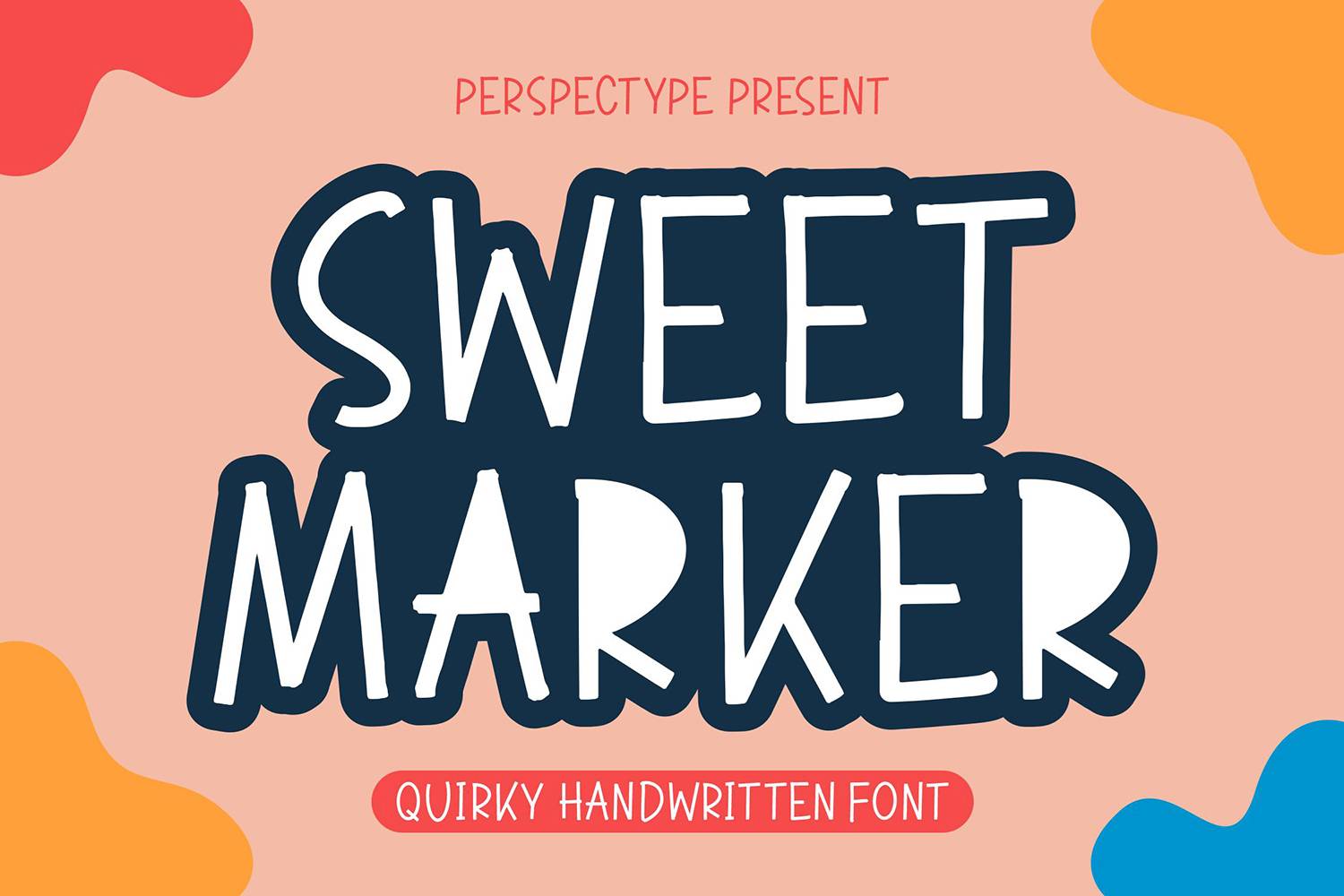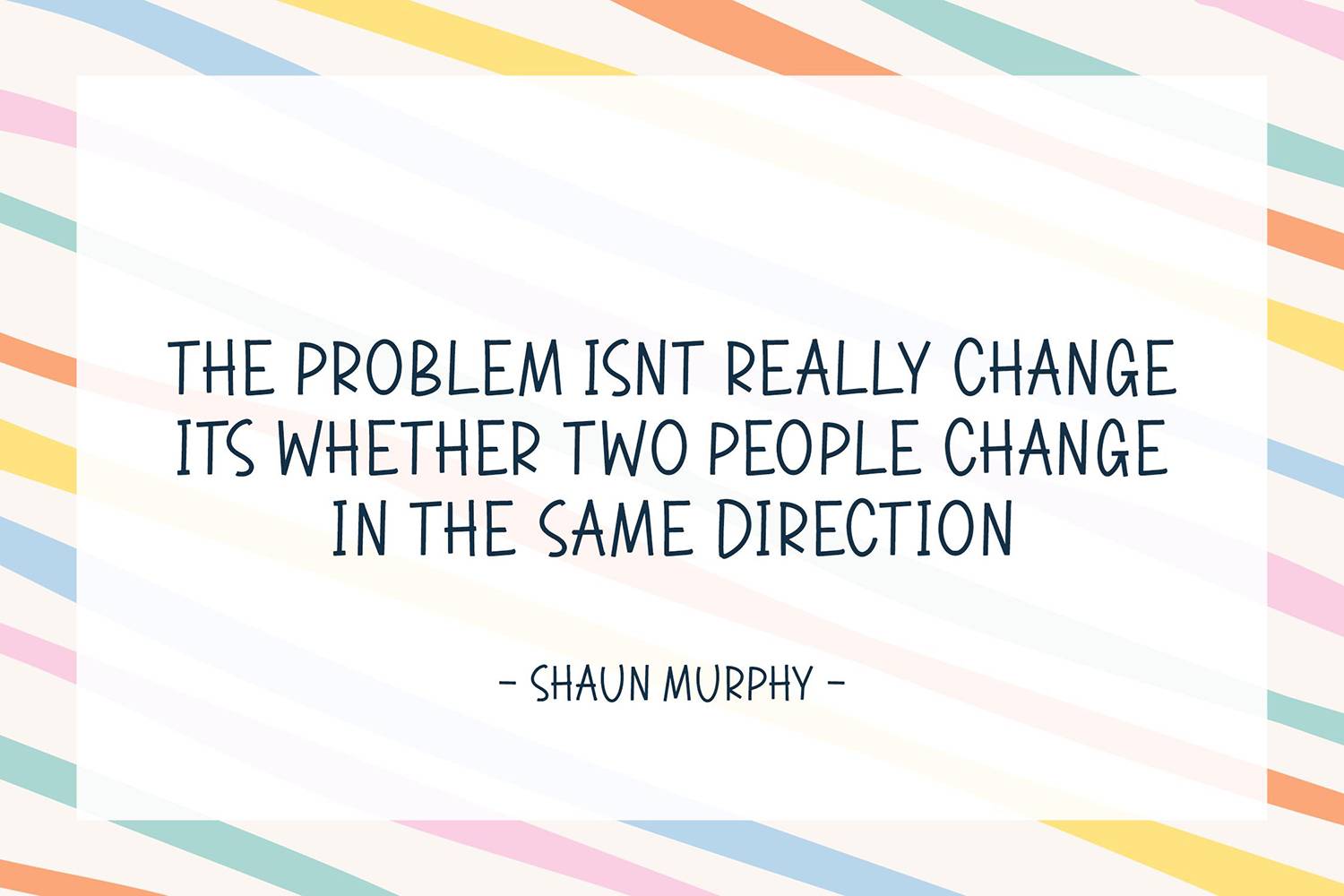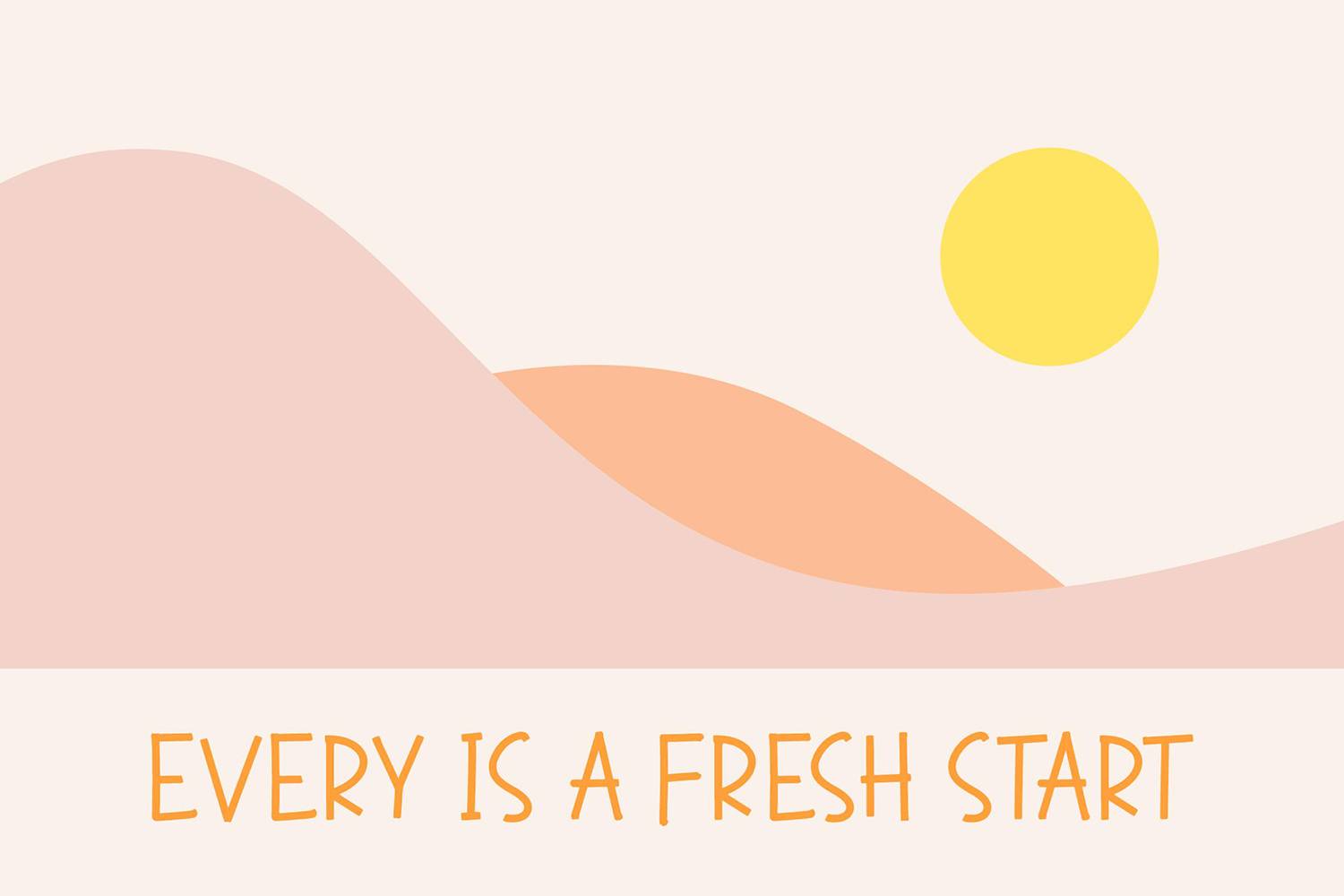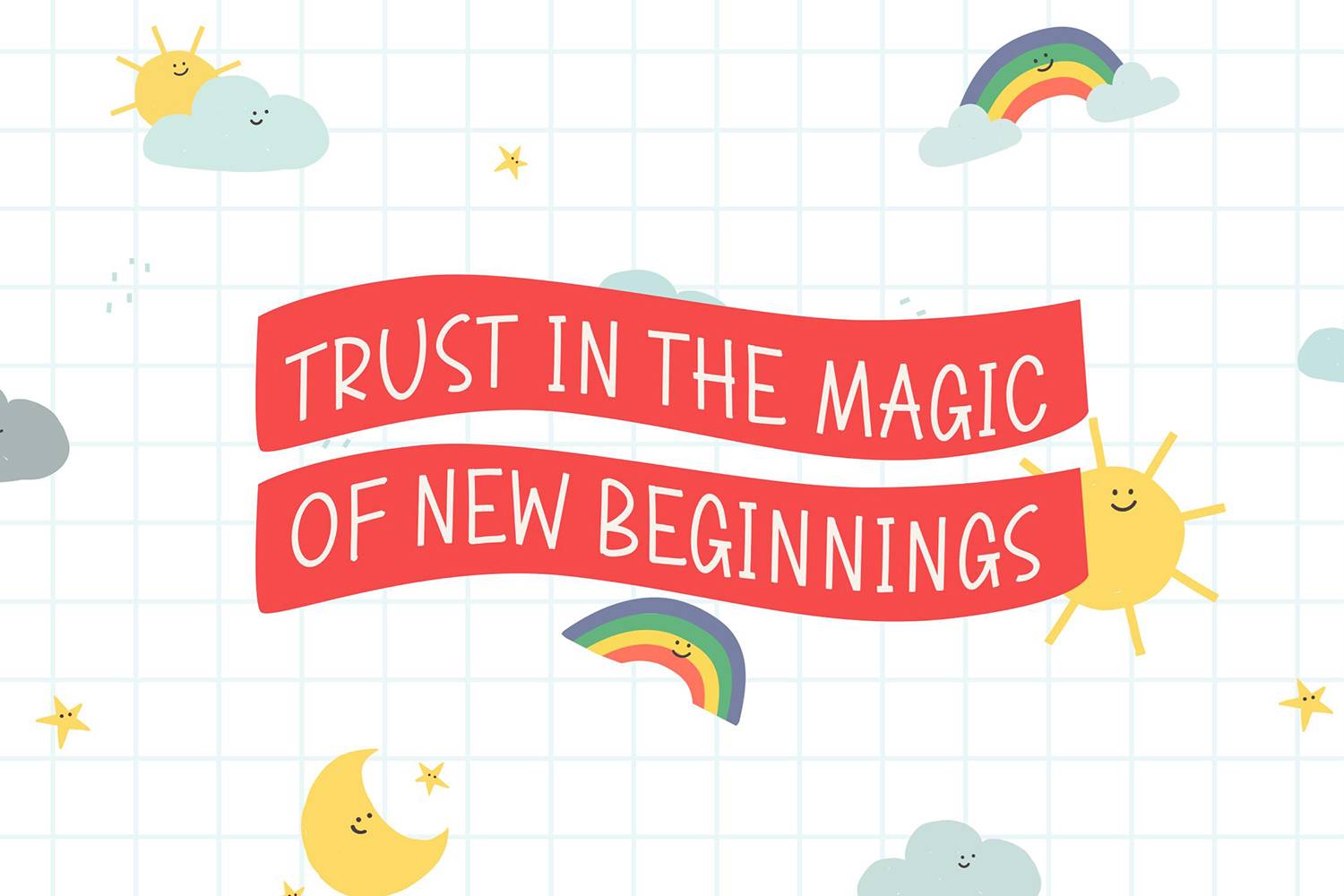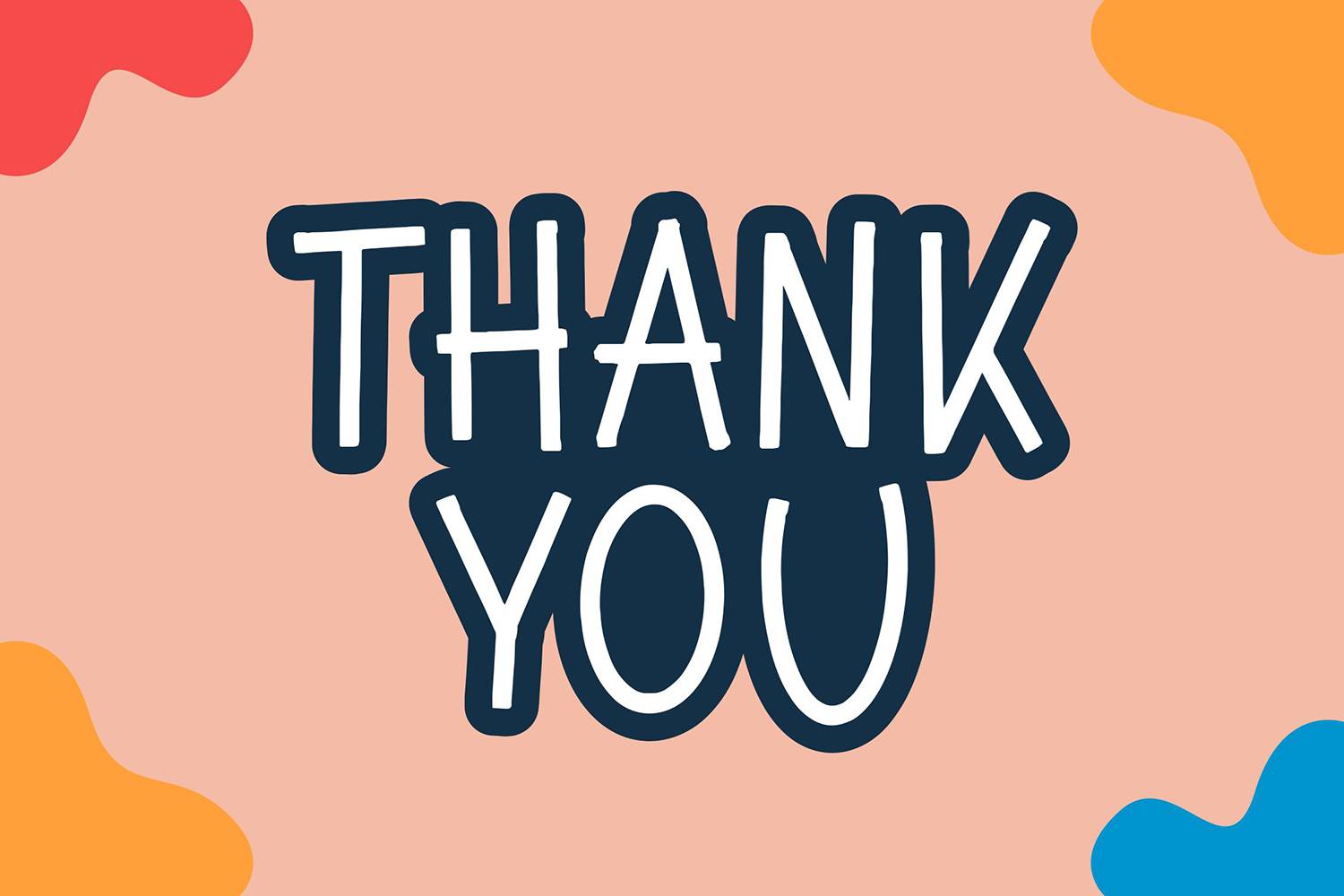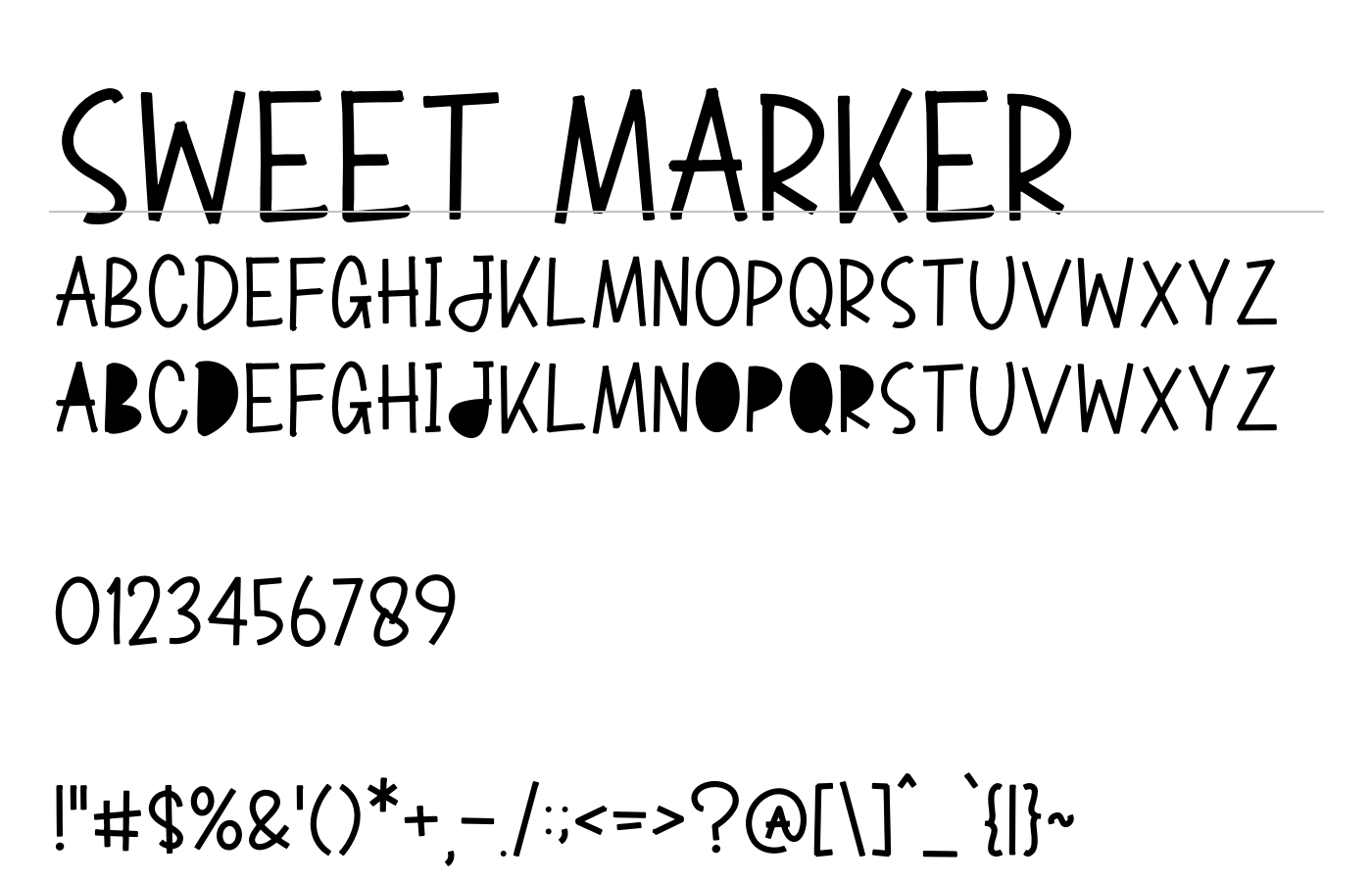
Sweet Marker is a playful and casual handwritten sans serif font with uneven strokes that mimic a marker pen’s natural texture. Its tall, narrow letters and quirky filled-in alternates give it a fun, informal charm perfect for creative projects, children’s designs, and lighthearted branding. This font works well for headlines, posters, and logos where a friendly, approachable feel is desired.
Sweet Marker Font
About Sweet Marker Font